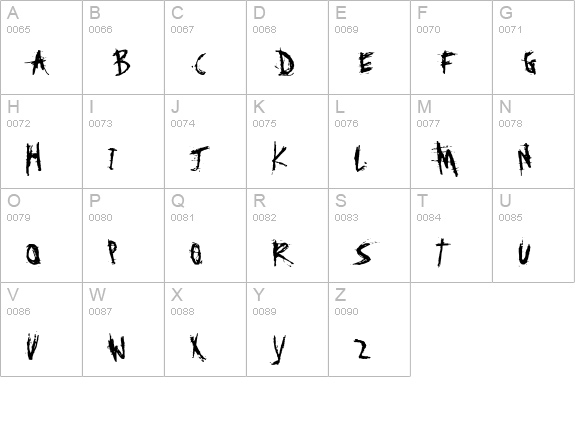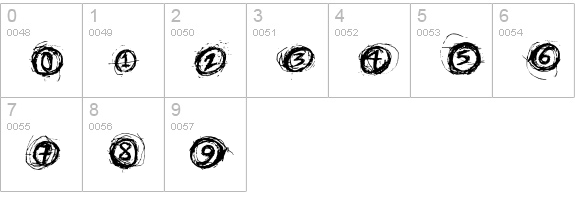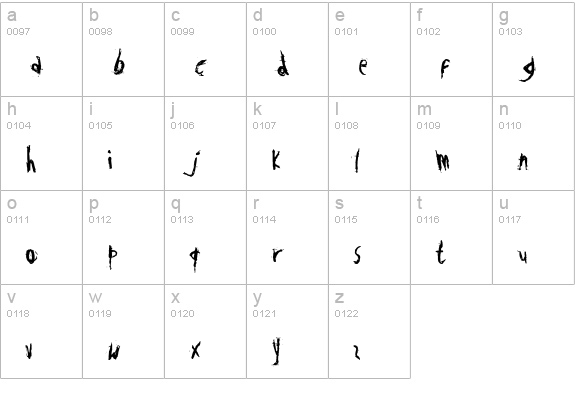
Disgusting Behavior Font Details
Introducing Disgusting Behavior font, a grotesque and edgy typeface that perfectly captures the essence of repulsion and revulsion. Its jagged edges and uneven spacing evoke a sense of discomfort and unease, making it an ideal choice for projects that aim to highlight the darker side of human nature. This font is not for the faint of heart, as its sharp angles and twisted forms will leave a lasting impression on viewers. Whether you're working on a horror movie poster, a punk band album cover, or a Halloween party invitation, Disgusting Behavior font will add a touch of macabre flair to your designs. The best part? Disgusting Behavior font is available for free download at FontsMarket.com. So go ahead, unleash your creativity and add a dose of grotesque charm to your next project with this unique and unsettling typeface.